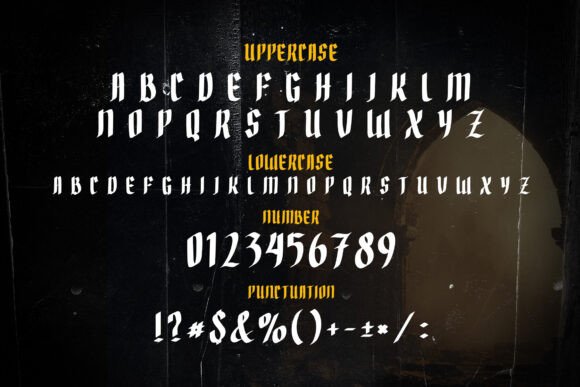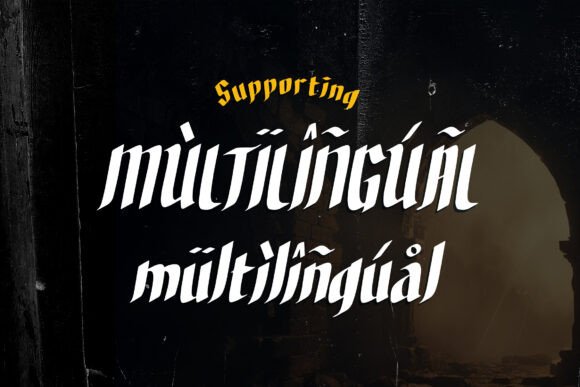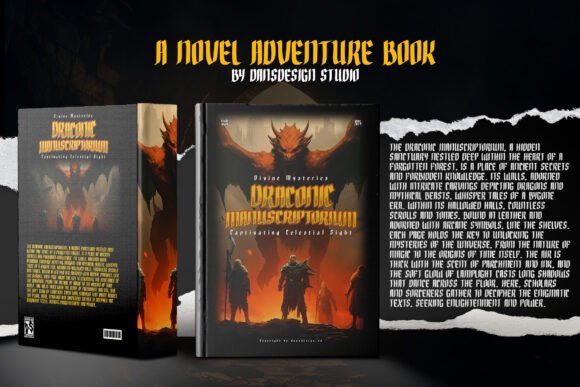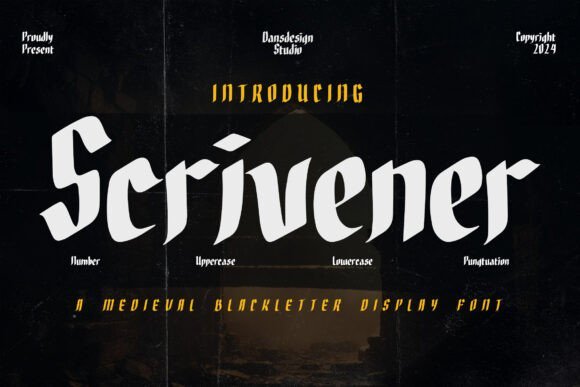
Introduction to Scrivener Font
Scrivener is a bold and dramatic blackletter display font inspired by medieval manuscripts and gothic scripts.
With sharp edges, ornate strokes, and a timeworn feel, this font brings historical gravitas and vintage mystique to your projects Perfect for fantasy book covers, game titles, vintage branding, or metal band logos, Scrivener is your go-to for a dark and authentic old-world aesthetic.
Why Choose Scrivener Font?
Scrivener Font offers exceptional quality and versatility, making it a valuable addition to your design toolkit. Whether you’re creating for personal projects or commercial use, Scrivener Font delivers professional results.